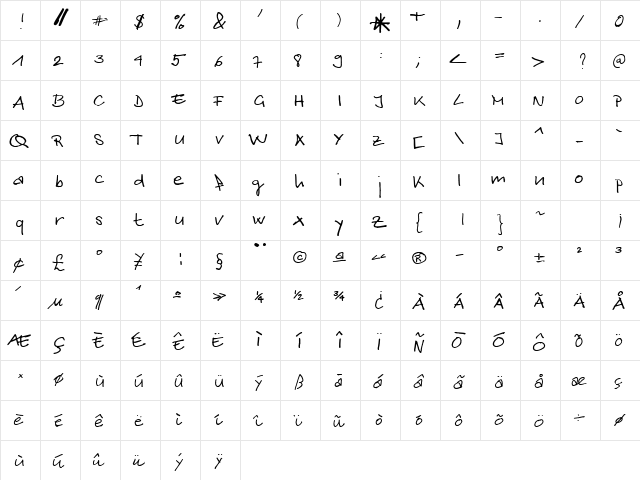
Delphine Regular Font Preview
Delphine Regular
Delphine Regular Font Details
Design Context for Delphine Typeface
Delphine is a composed and adaptable typeface that performs quietly and consistently across a wide range of design contexts.
Pro Tip: Use Delphine in both headline and body roles to test its range before committing to a single application.